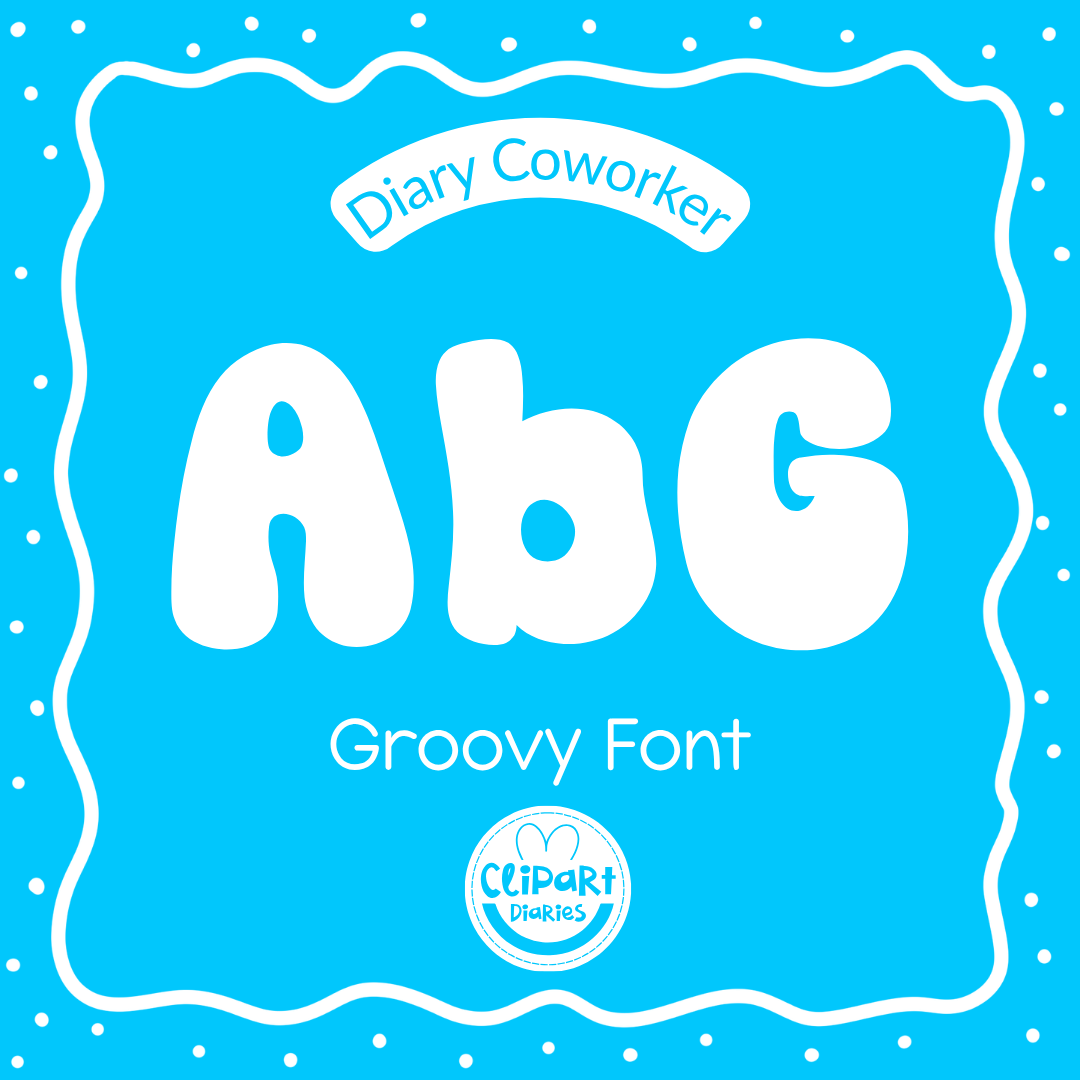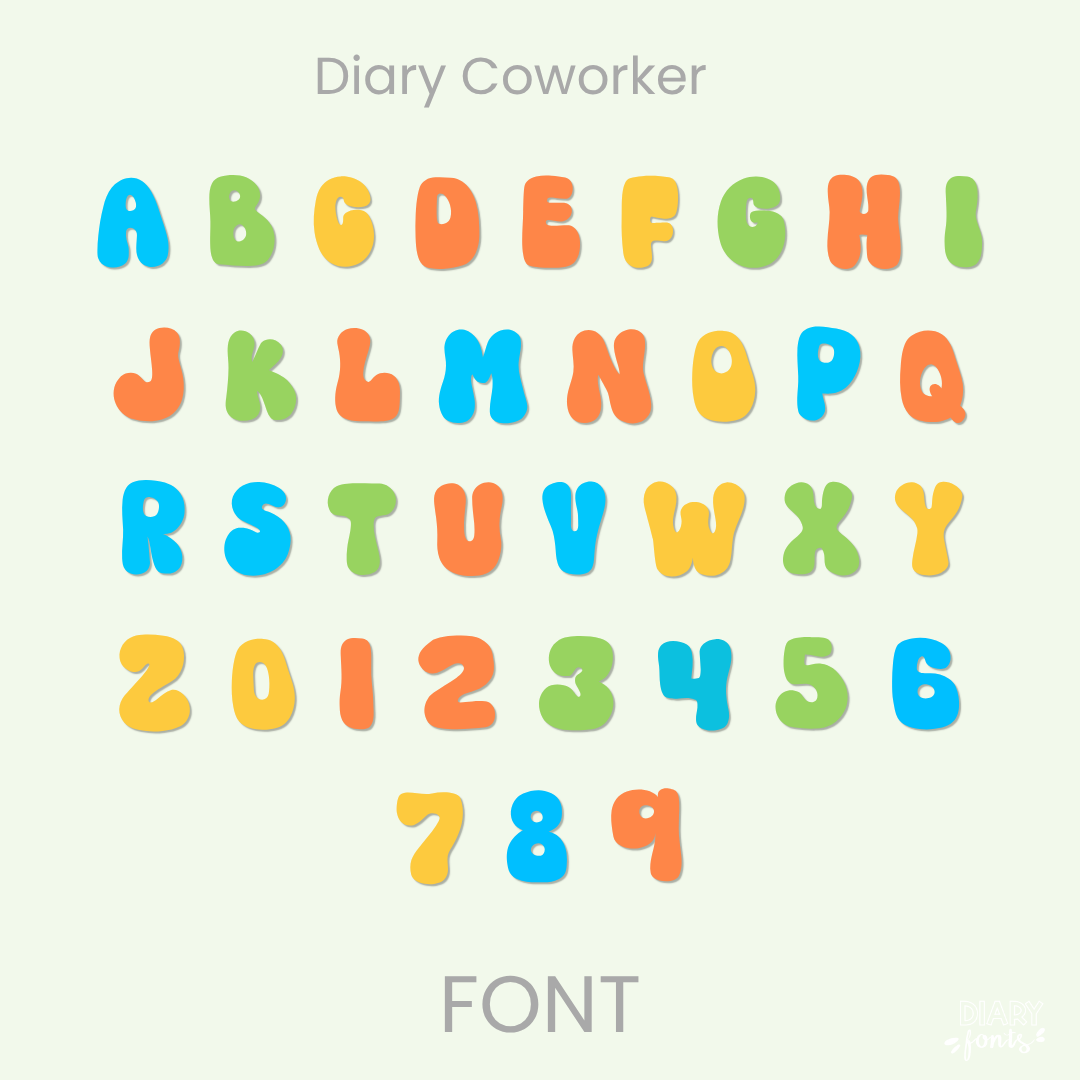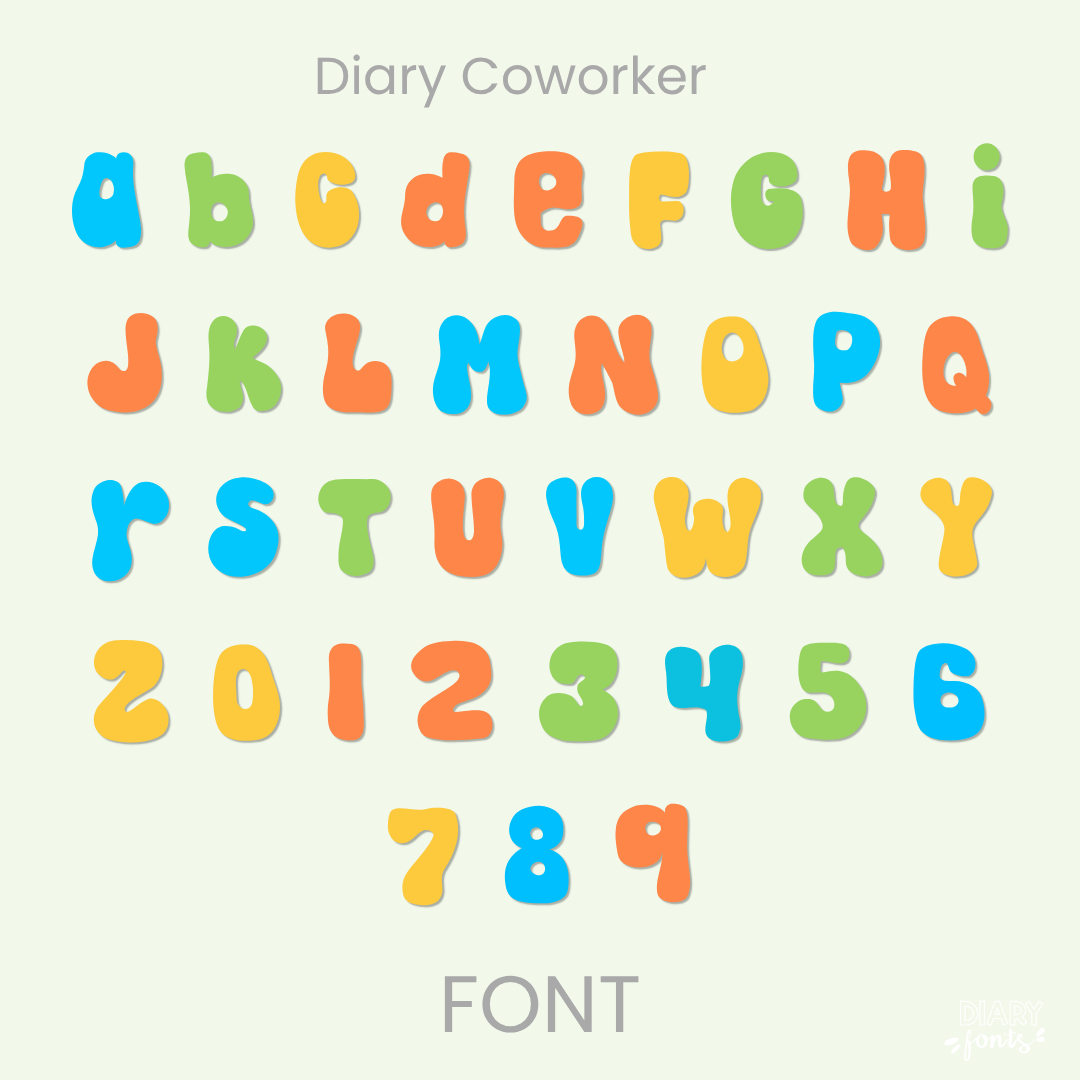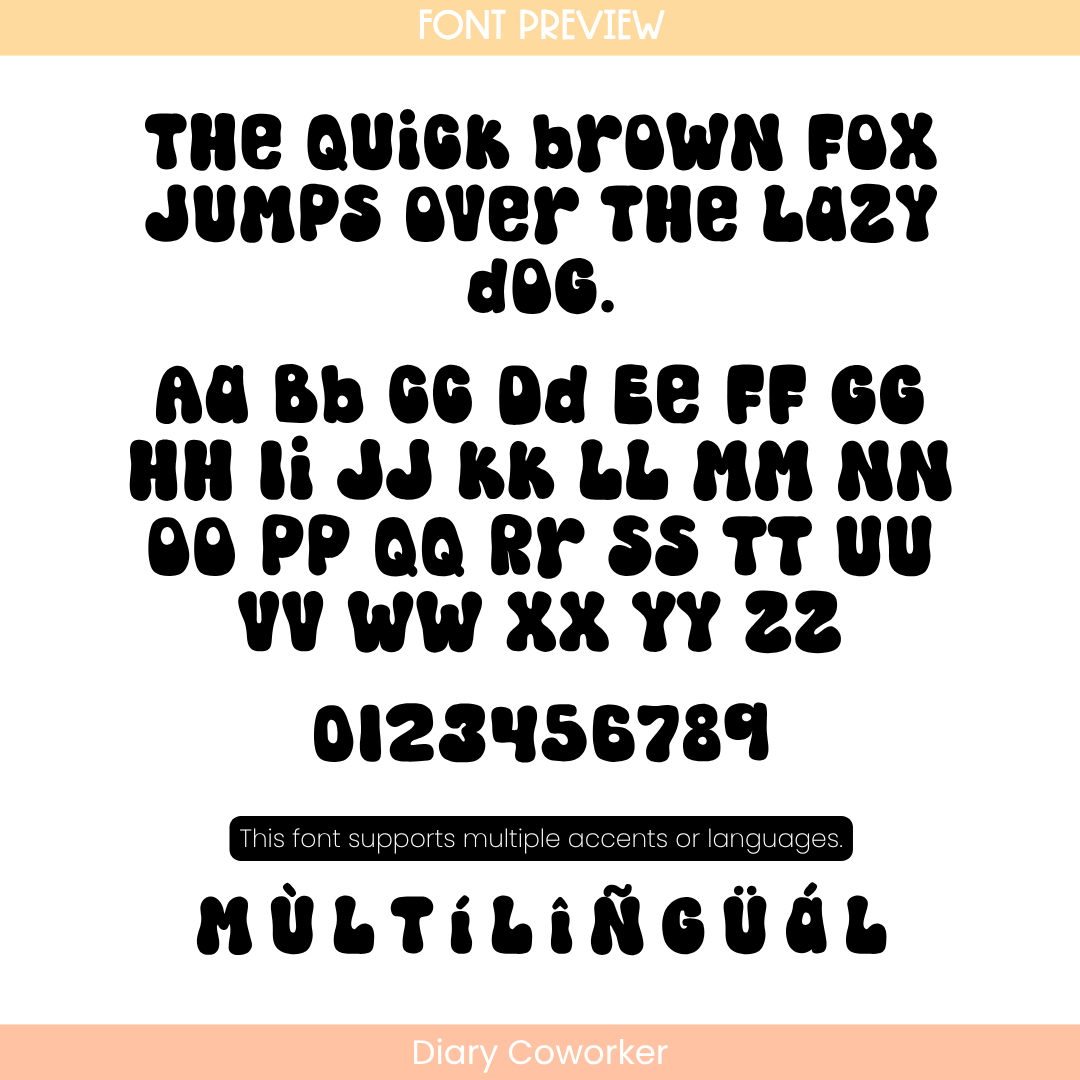
Diary Coworker Font – Retro Groovy Style
The Diary Coworker is a bold, retro-inspired groovy handwritten font designed to bring a fun and energetic throwback feel to your digital resources and classroom materials.
If you want to give your projects a cheerful and friendly look, Diary Coworker is an excellent choice. It features thick, stylized characters with a playful retro vibe that mimics classic blocky lettering while remaining neat and handwritten. This makes it highly legible for students while still feeling playful. It is especially effective for bold headers, classroom labels, and primary school resources. The font includes a full set of uppercase and lowercase letters, numbers, and multiple accents to support different languages. It is ready for use in Canva, MS Office, and Adobe Apps, and it works perfectly with iPad apps like GoodNotes and Procreate. Whether for personal classroom use or commercial resources, this font adds a soft and approachable aesthetic to your work.